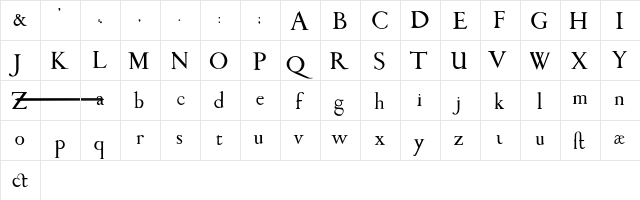
De Beau Chesne Roman Regular Font Preview
De Beau Chesne Roman Regular
De Beau Chesne Roman Regular Font Details
Design Context for De Beau Chesne Roman Typeface
De Beau Chesne Roman takes a measured approach to typography — its balanced proportions and neutral character make it a reliable workhorse for both digital and print work.